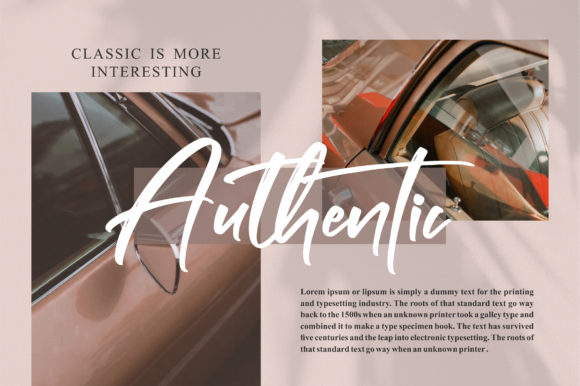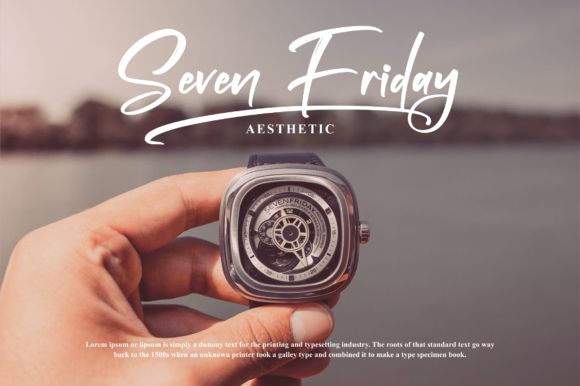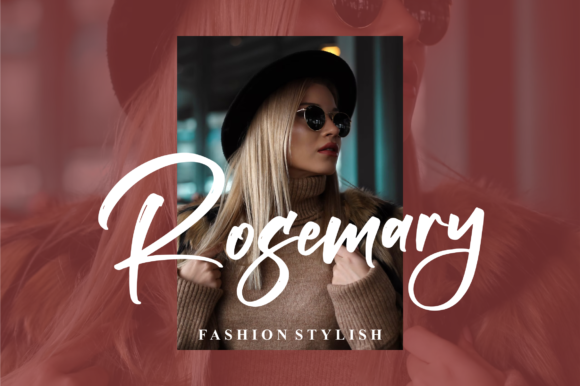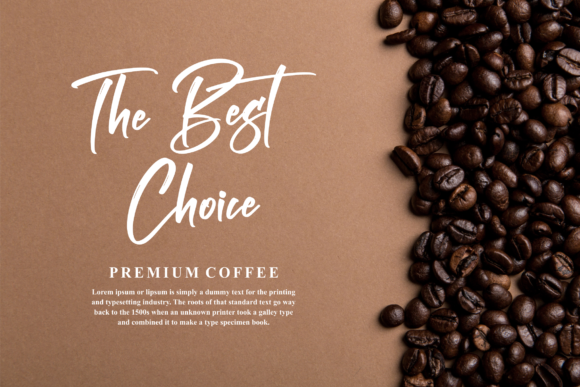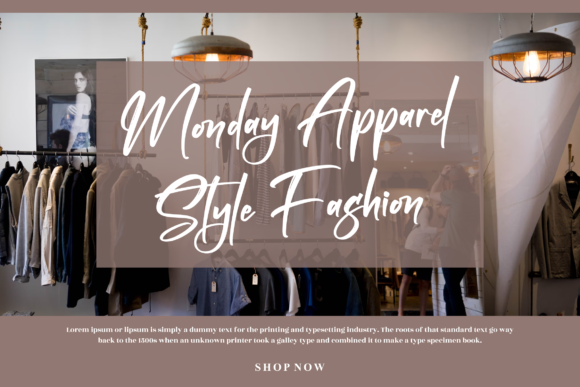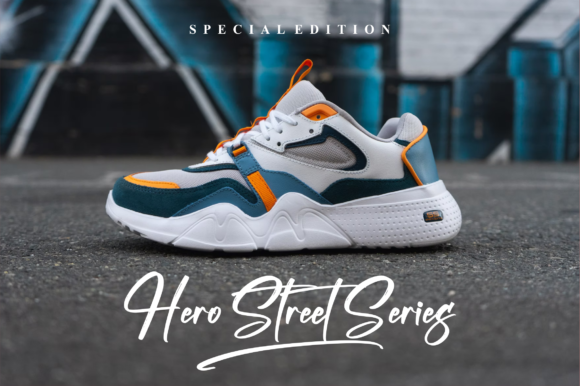
Introduction to Harthenlie Font
Remember that moment when you stumbled upon the perfect design element, and your creative project just came together in an instant? For designers, finding the right font can be a game-changer. It’s the difference between a good design and a great one. Recently, I discovered the Harthenlie Font, and I’m excited to share its beauty with you.
This stunning script font is a treasure trove for designers, offering a high-quality design resource that’s perfect for various creative projects. From logos and branding projects to homeware designs and product packaging, Harthenlie Font is a versatile choice that will elevate your work to the next level. Whether you’re working on a project with a transparent background or need a font that can be easily customized, Harthenlie Font is an excellent addition to your design toolkit.
Key Features of Harthenlie Font
- Unique, cursive font with a transparent background, ideal for creative projects requiring a touch of elegance.
- High-quality font design resource, suitable for various applications, including headings, titles, and body text.
- Comes in a single font weight, with 6 styles (Regular, Italic, Bold, Bold Italic, Script, and Script Italic) for added versatility.
- Perfect for designers and artists looking for a distinctive, high-quality font to elevate their creative project.
- Supports various languages, making it a valuable resource for multilingual design projects.
Honest Review: Harthenlie Font
I recently came across the Harthenlie Font and I’m excited to share my thoughts on this design resource. As a designer, I’m always on the lookout for high-quality fonts that can elevate my creative projects.
What works well: ✨ The Harthenlie Font is incredibly versatile and can be used for a wide range of projects, from digital designs to print materials. It has a unique, modern feel that’s sure to catch the eye. The font also comes with a transparent background option, which is perfect for creating stunning graphics and designs.
What doesn’t work well: ⚠️ While the Harthenlie Font is a great design resource, it’s not perfect. The font can be a bit tricky to work with, especially when it comes to adjusting the size and spacing. Additionally, the free download option may not be suitable for commercial use, so be sure to check the licensing terms before using it in a project.
- High-quality font with a unique, modern feel
- Transparent background option for creating stunning graphics and designs
Overall, I’m impressed with the Harthenlie Font and I would definitely recommend it to designers looking for a high-quality design resource. Just be sure to check the licensing terms and take the time to learn how to work with the font effectively.
To get the most out of the Harthenlie Font, use it on a transparent background to create a high-quality design. You can also combine it with other design elements to create a unique and creative project.
The Harthenlie Font is suitable for a variety of creative projects, including logo design, branding, and marketing materials. Its high-quality design makes it an excellent choice for any project where a professional look is required.
When using the Harthenlie Font, be sure to adjust the font size and style to suit your design needs. You can also experiment with different color combinations to create a unique and eye-catching design.